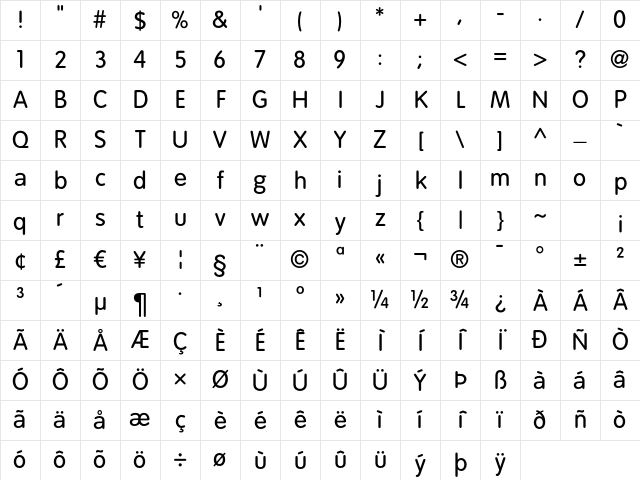
Tate Regular
Tate Family
Tate Regular
Design Context for Tate
Tate is a composed and adaptable typeface that performs quietly and consistently across a wide range of design contexts.